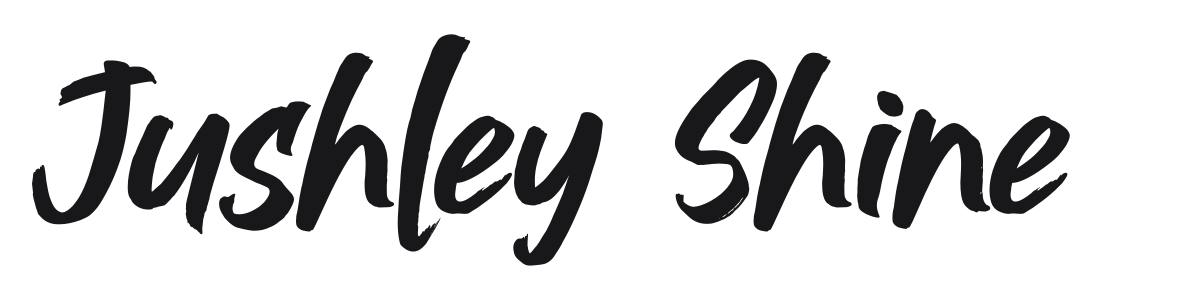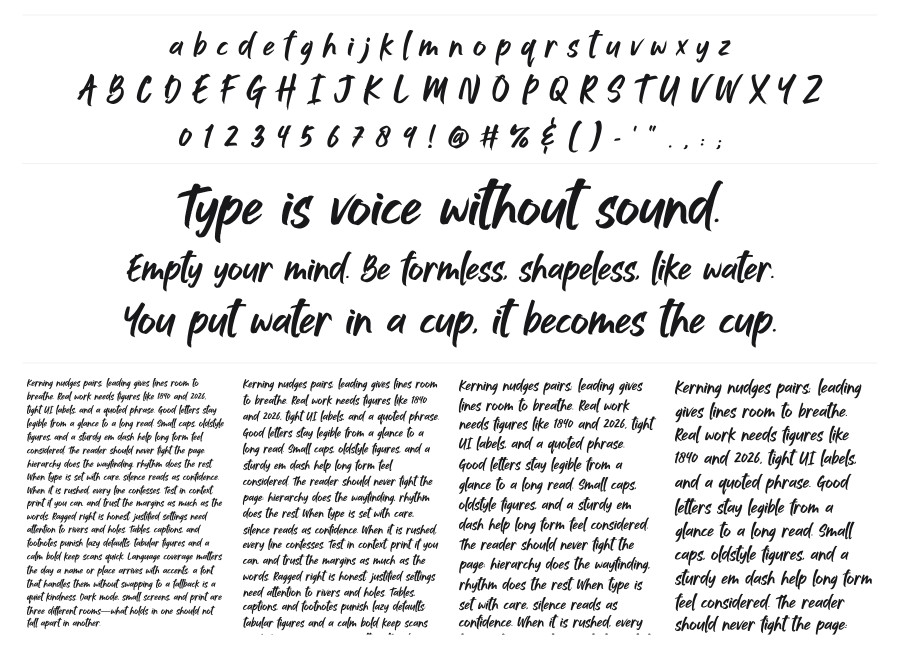
Jushley Shine
Jushley Shine is a bold casual brush script with thick, inky strokes and a natural hand-lettered energy. The bristle texture and forward lean give it an authentic, loose quality that sits well in branding, packaging, and poster work. It reads as confident without feeling stiff.